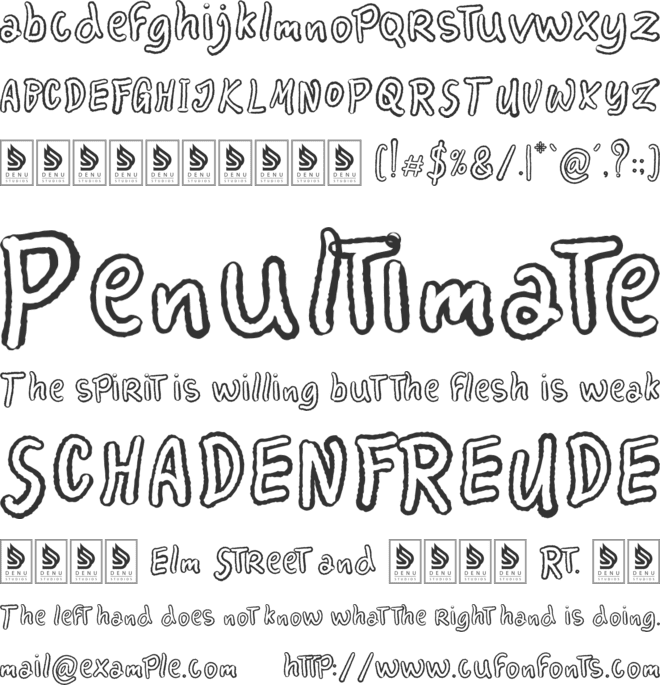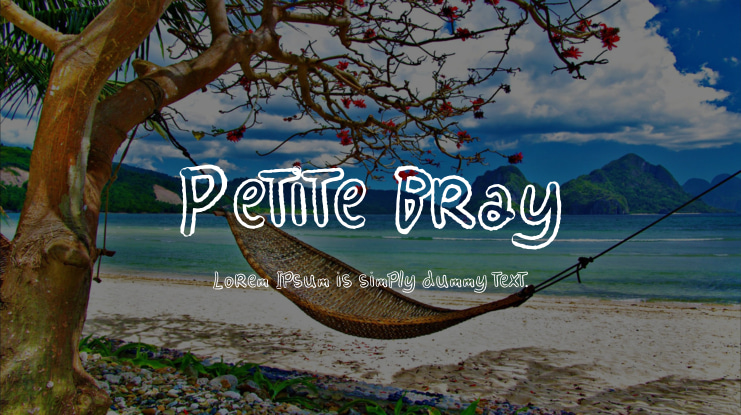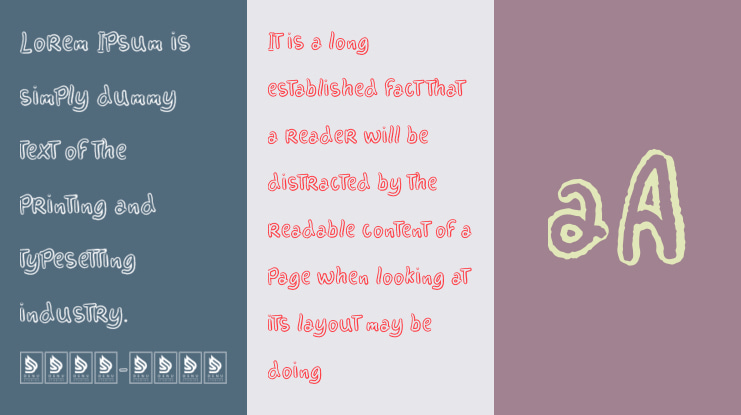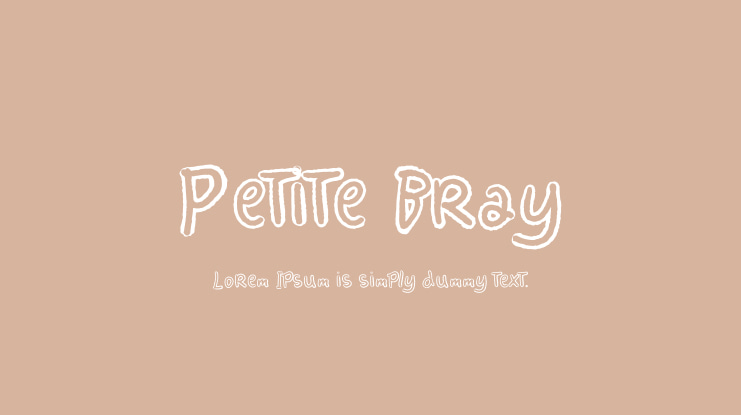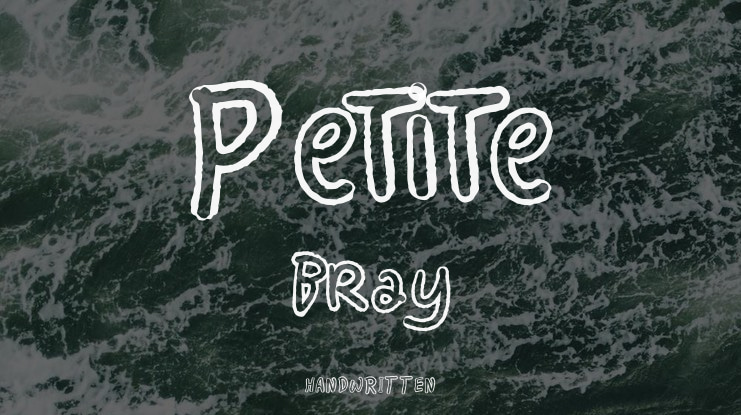
Petite Bray Font
Petite Bray | Quirky Script is suitable for many projects such as: logos, branding projects, homeware designs, product packaging, mugs, quotes, posters, shopping bags, t-shirts, book covers, name cards, invitation cards, greeting cards, labels, photography, watermarks, special events, and any other lovely projects that need a quirky script element.